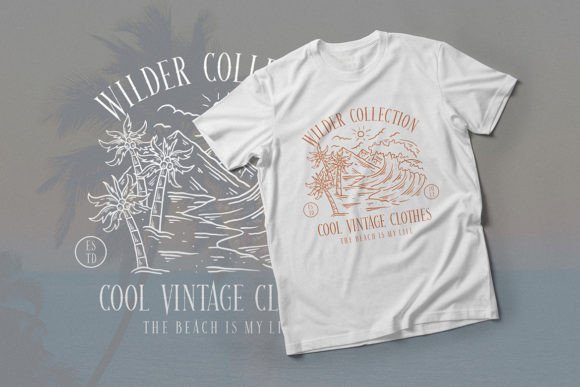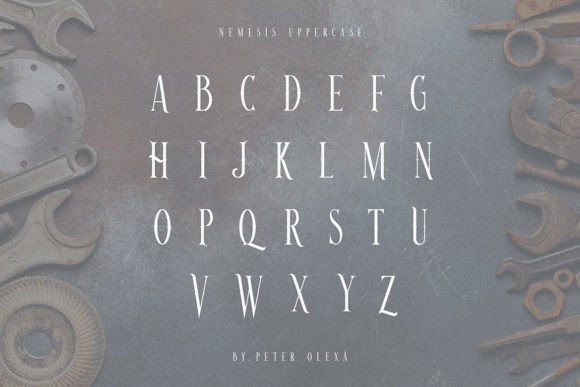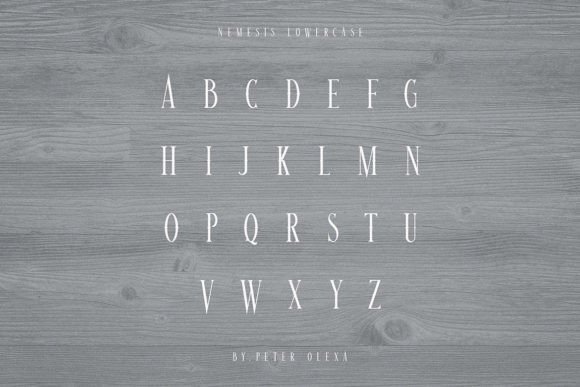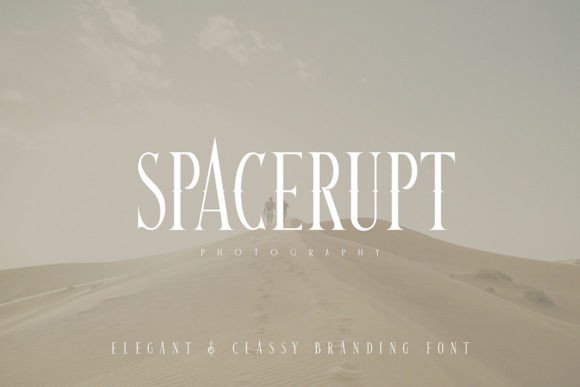
Introduction to Nemesis Font
Nemesis is a serif font that is stylish and distinctive, with artistic characteristics that make it stand out from the crowd.
Its bold, sweeping strokes and graceful curves give it a sense of elegance and sophistication, while its unique and artful forms create a memorable and eye-catching look .
Key Features of Nemesis Font